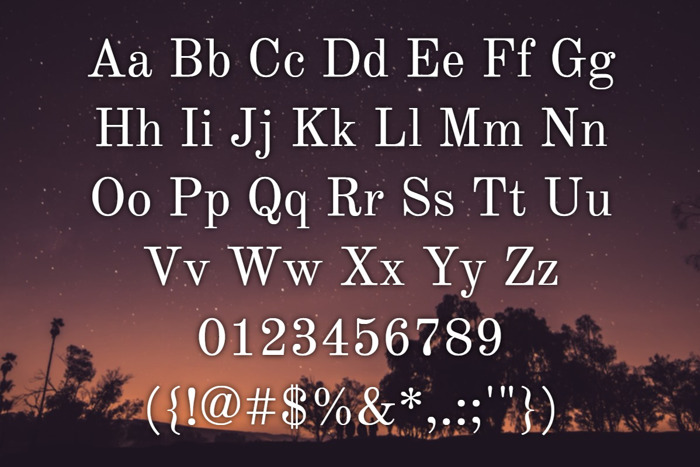
Old Standard Font
Old Standard is my multilingual font family, supposed to be a good companion for Thessalonica. It is based on Russian and German editions of the late 19th and early 20th centuries and reproduces the so-called "Modern" style, extremely popular in its time, but almost completely abandoned later. This project is currently most mature and stable, although still has a large field for improvements. The Old Standard font family currently includes three shapes (regular, italic and bold) and has more than 1400 glyphs in the regular version.
A Bold italic was never intended, must be added
For an antique style of this font, check out Century Modern by Cioroianu Stefan